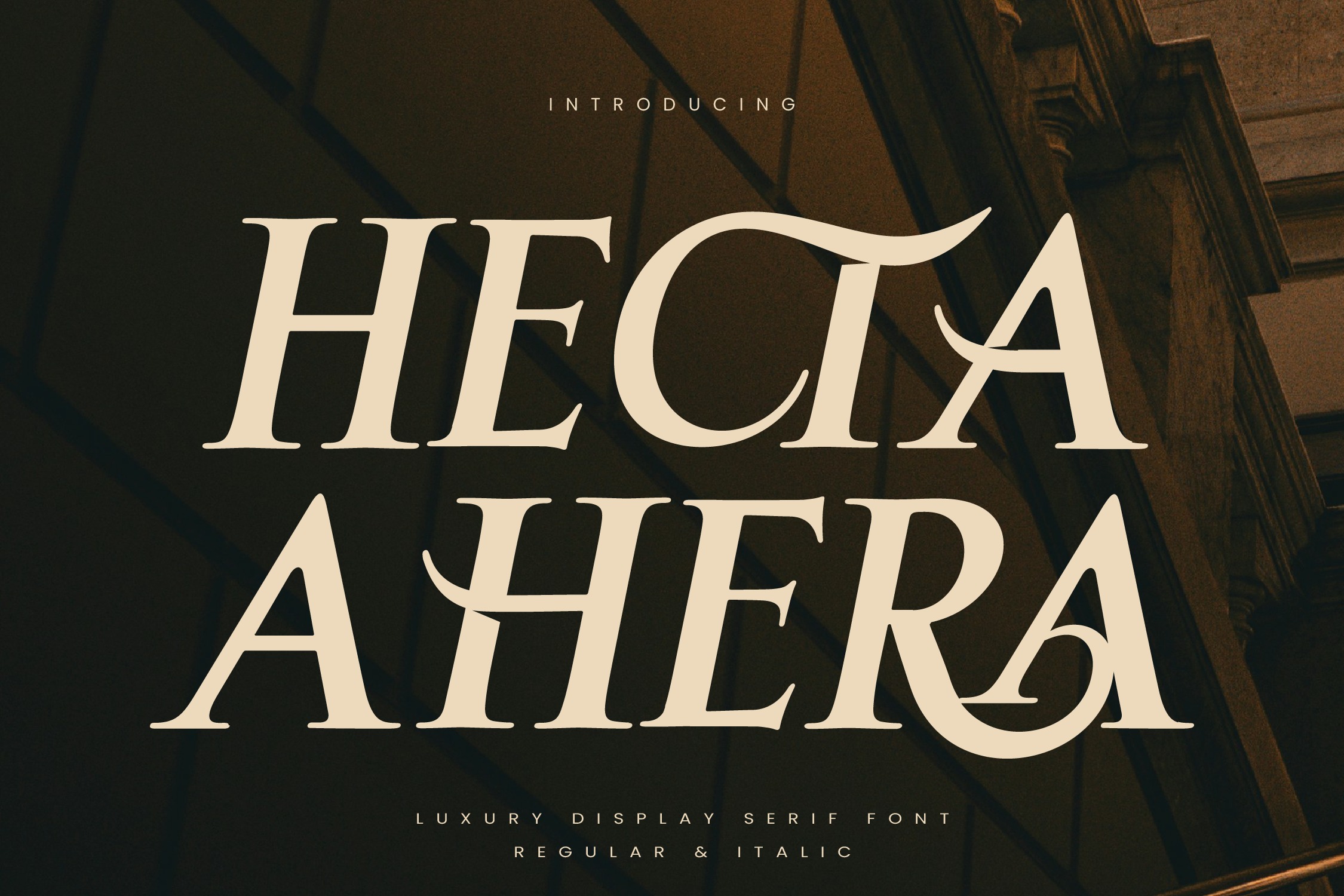
Hecta Ahera Font
Hecta Ahera Font brings a balanced structure and contemporary look, making it suitable for both digital and print design. The Essence of Hecta Ahera: A Sanctuary of Stillness and Prestige Imagine walking through the grand halls of a silent library or the polished marble lobby of a five-star heritage hotel. Hecta Ahera is a modern serif font crafted to embody that very atmosphere—a sanctuary of stillness, prestige, and enduring legacy. It is a typeface designed for those who believe that true luxury doesn’t need to shout to be heard.
Born from a fusion of classic Roman proportions and sharp, contemporary precision, Hecta Ahera acts as a bridge between history and the future. Each stroke is a tribute to artisanal craftsmanship, making it the perfect logo font for brands that prioritize professional excellence and a trendy, high-end aesthetic.
A New Standard for High-End Branding
Hecta Ahera is a luxury display serif family that defines sophistication. With its razor-sharp serifs and fluid stylistic alternates, this font is engineered to provide a bespoke feel for corporate identities, editorial masterpieces, and premium digital experiences.